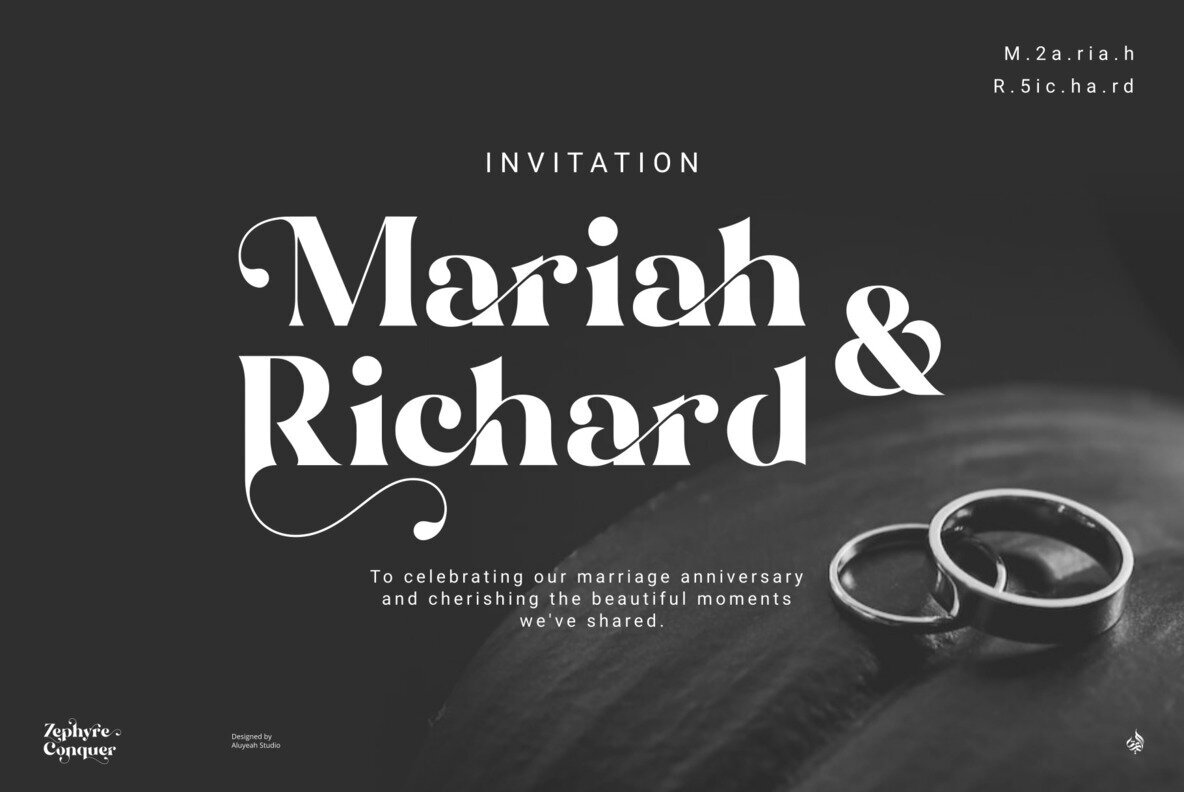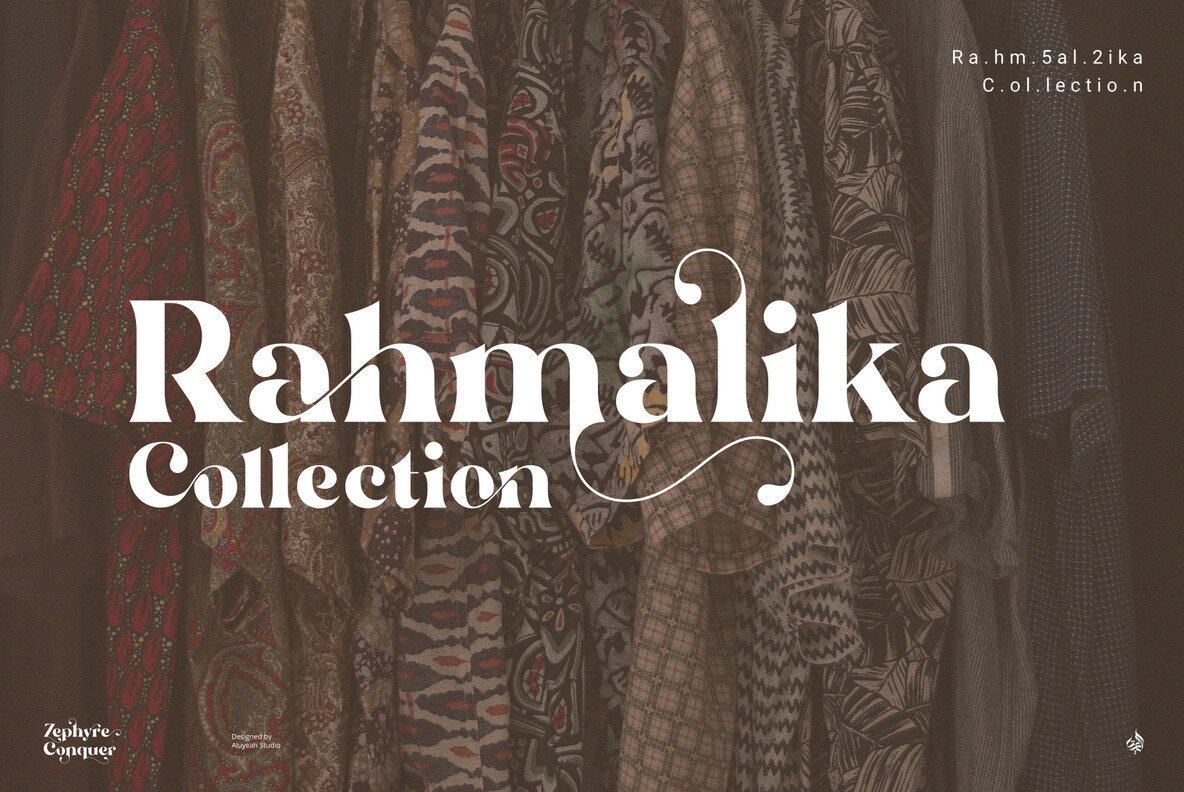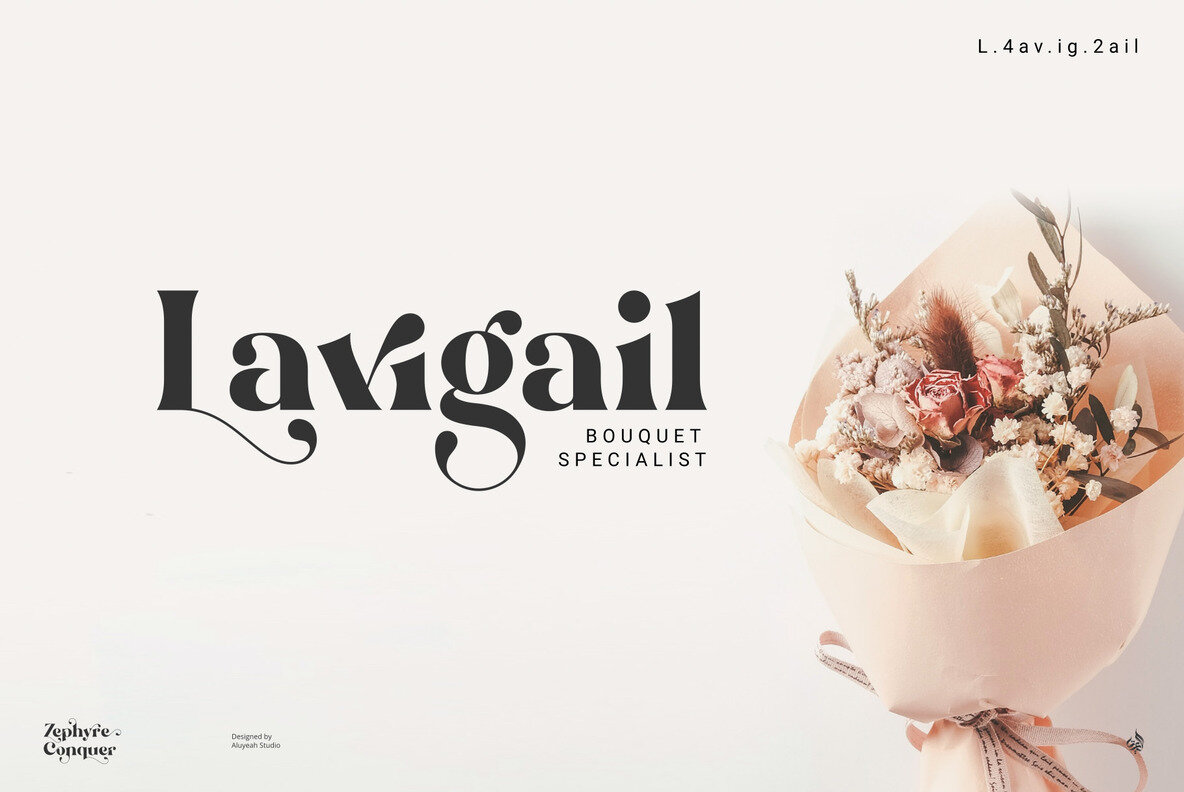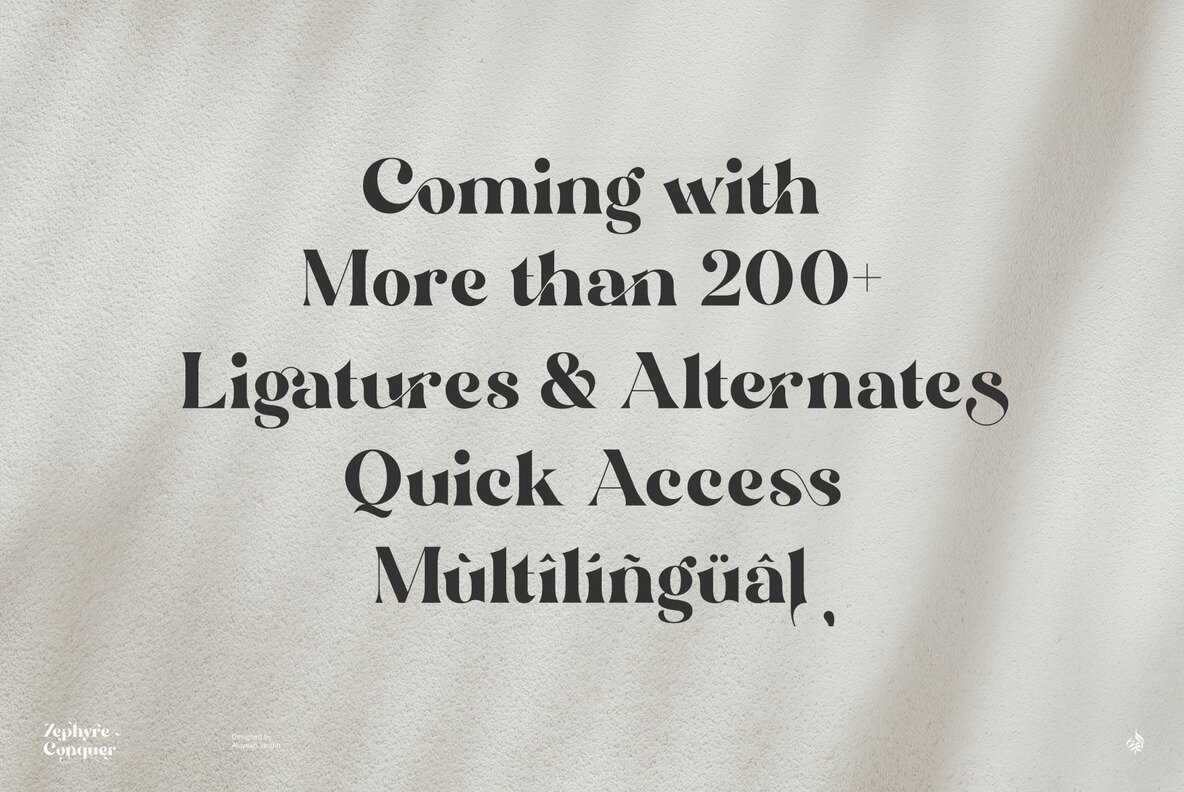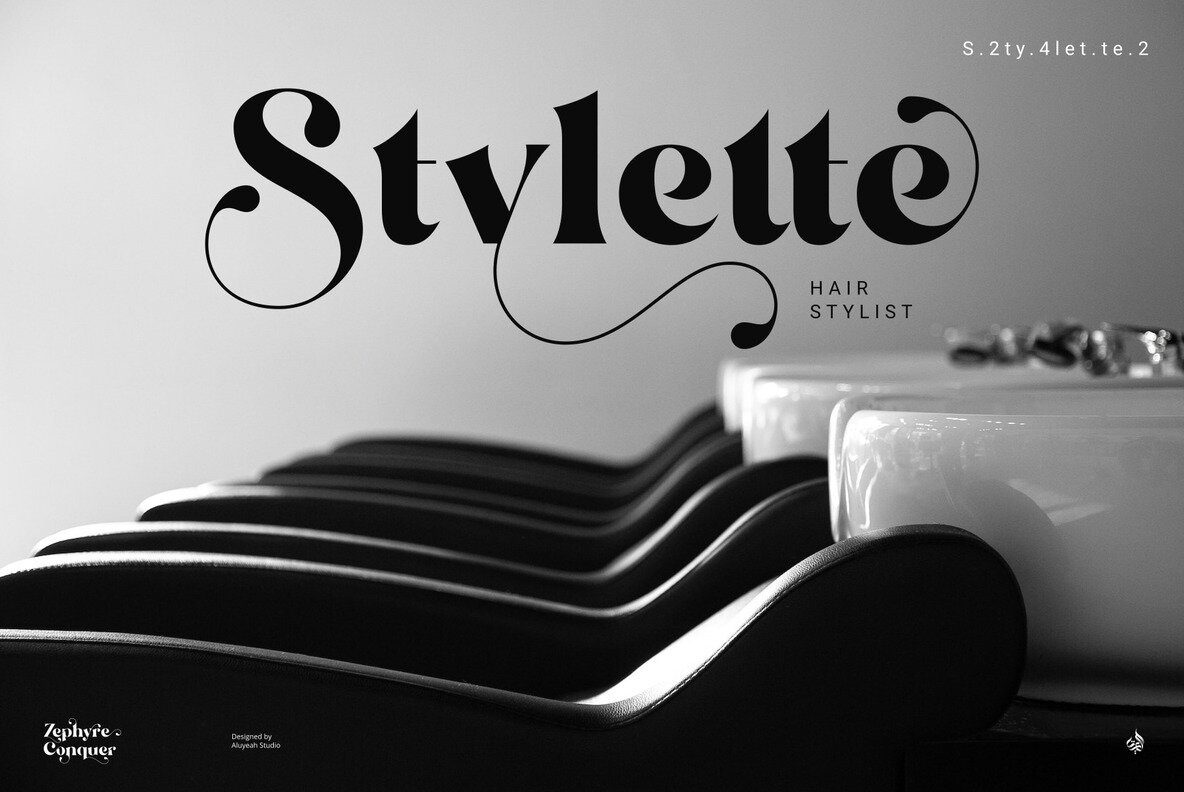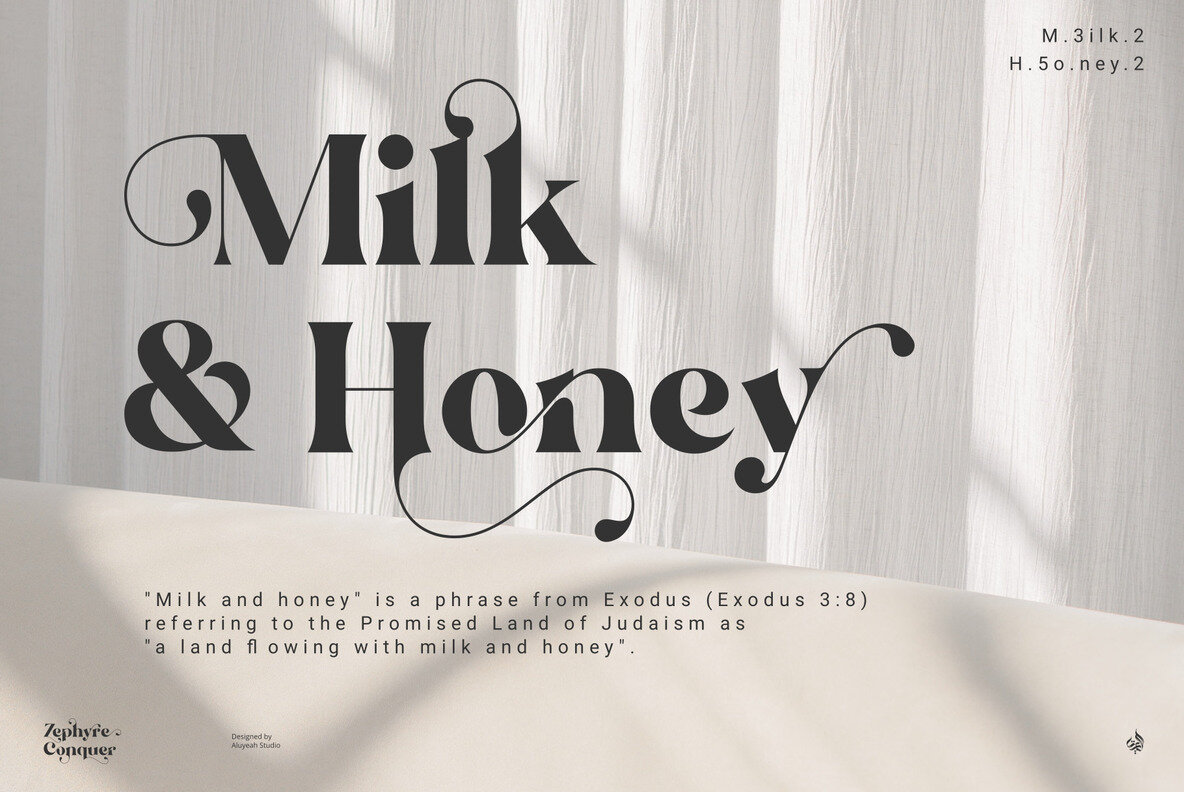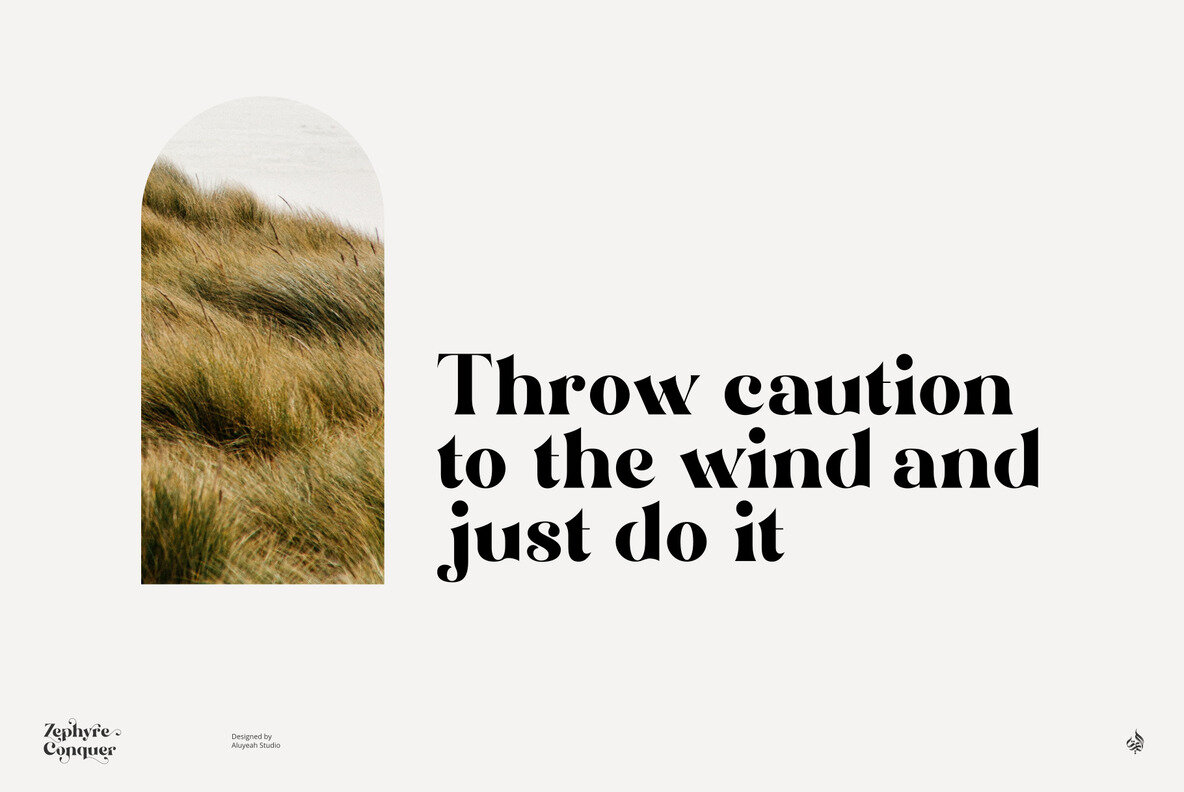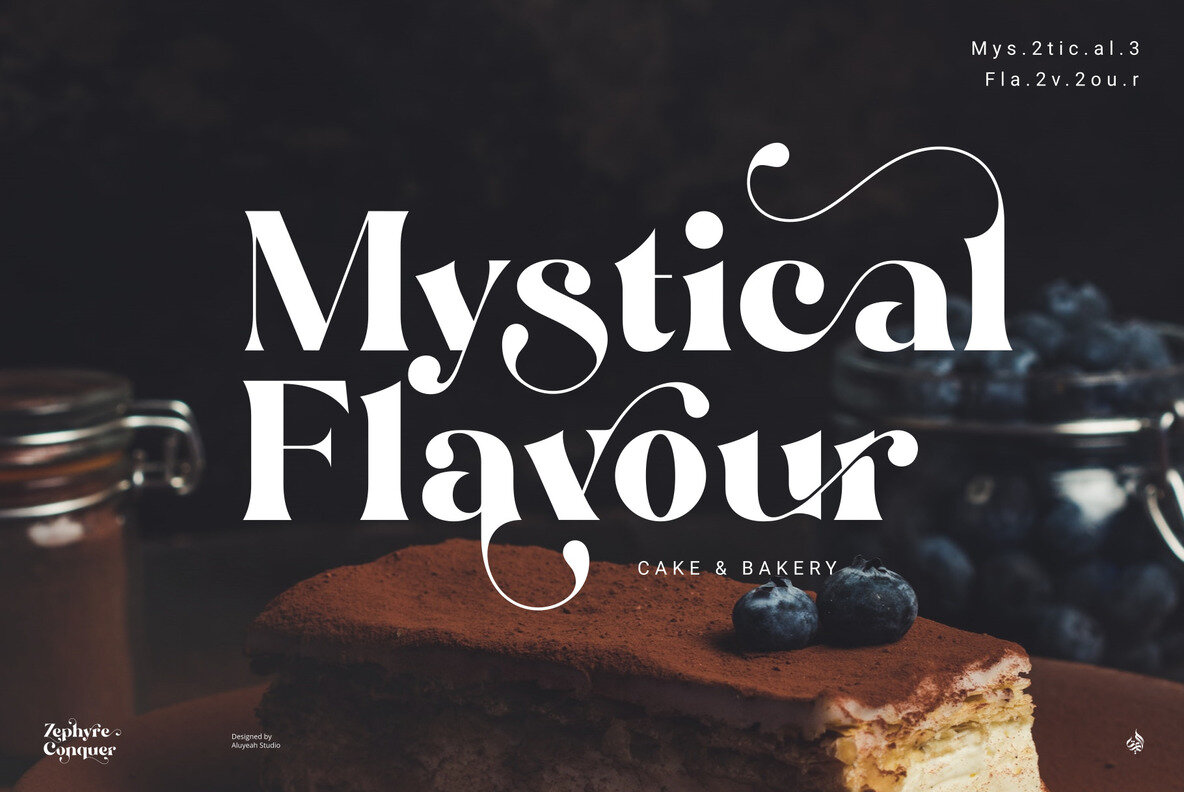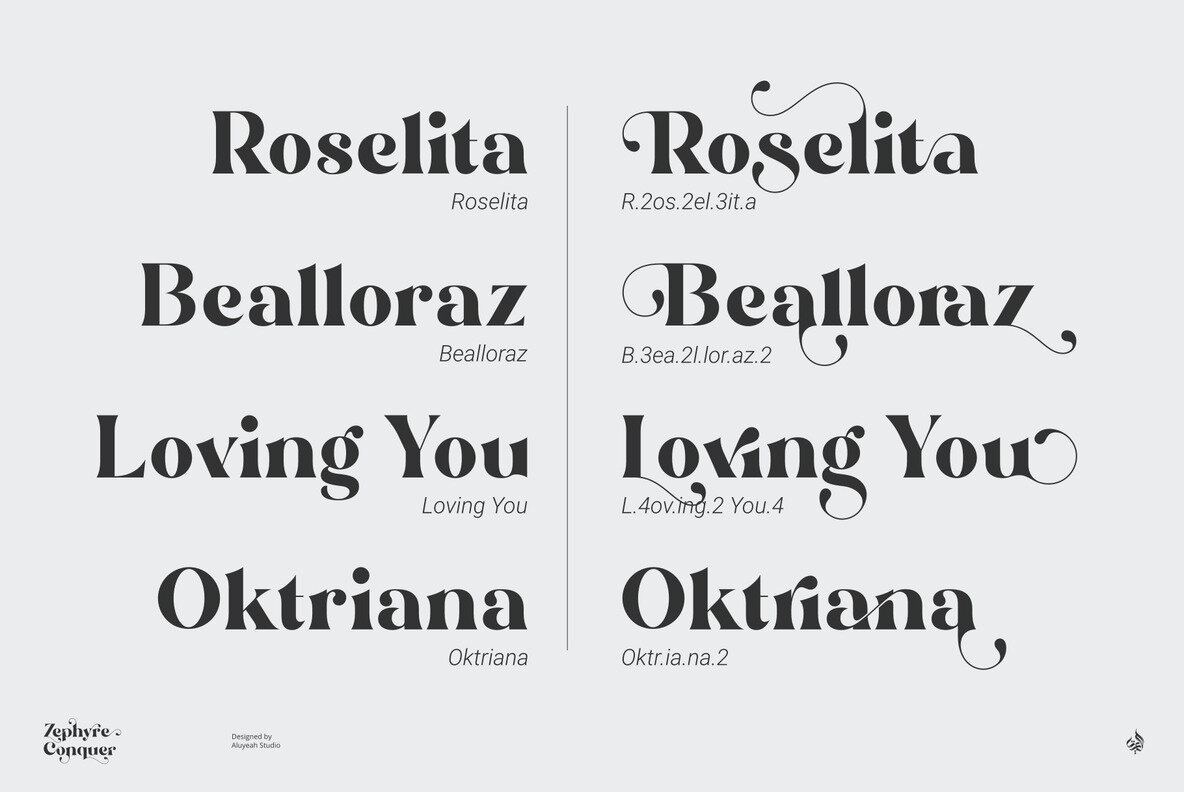
Zephyre Conquer Font
Discover the captivating elegance of Zephyre Conquer, a luxurious windy ligature display typeface that blends the mysterious allure of the zephyr with beauty and grace. This typeface is a unique combination of mindful design and artistic desire, creating an inexplicably elegant aesthetic that attracts attention while adding sophistication to your projects. If you have any questions or need assistance, feel free to reach out. Enjoy the elegance and versatility of Zephyre Conquer in your design projects!Zephyre Conquer: Luxurious Ligature Display Typeface